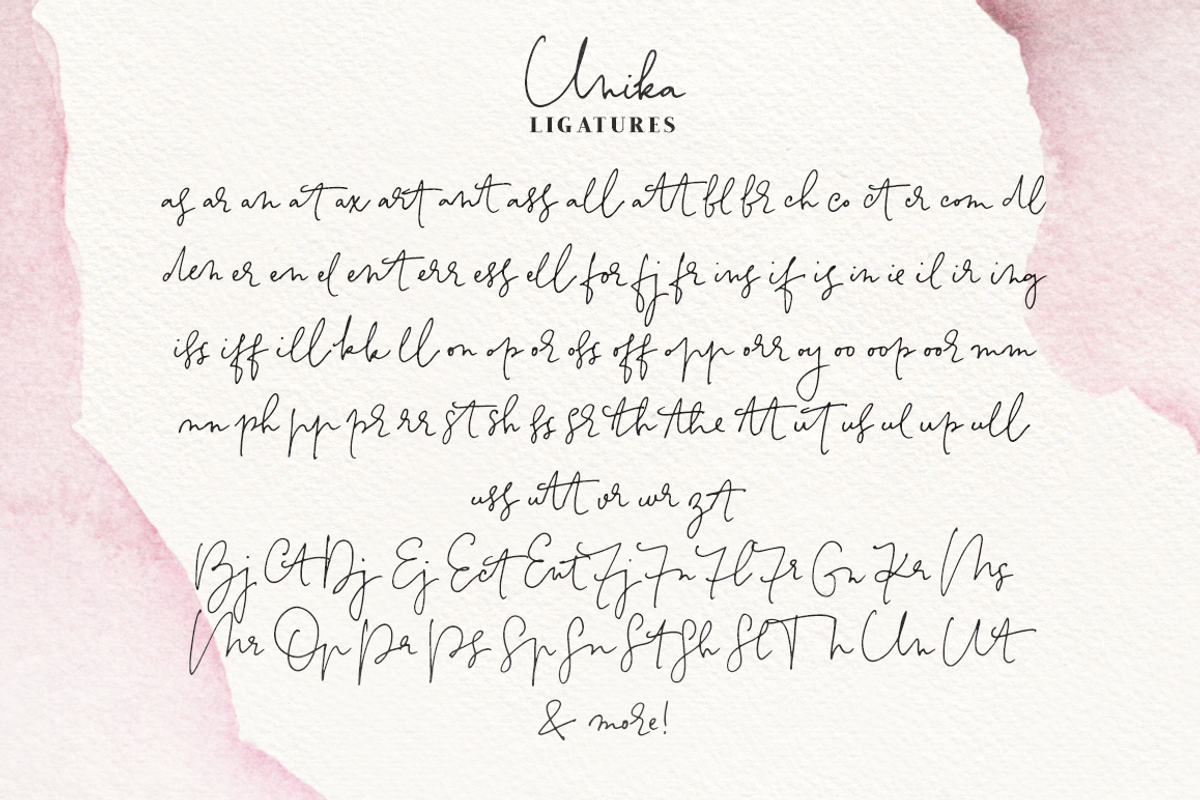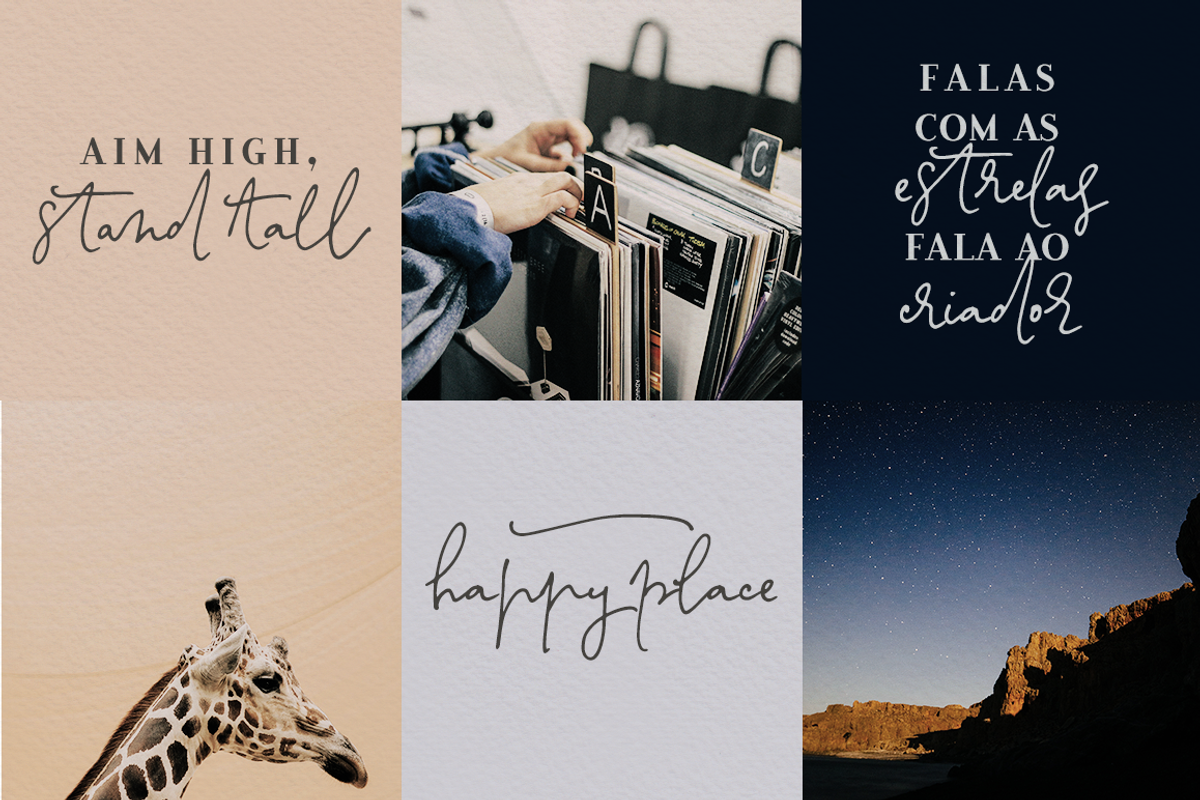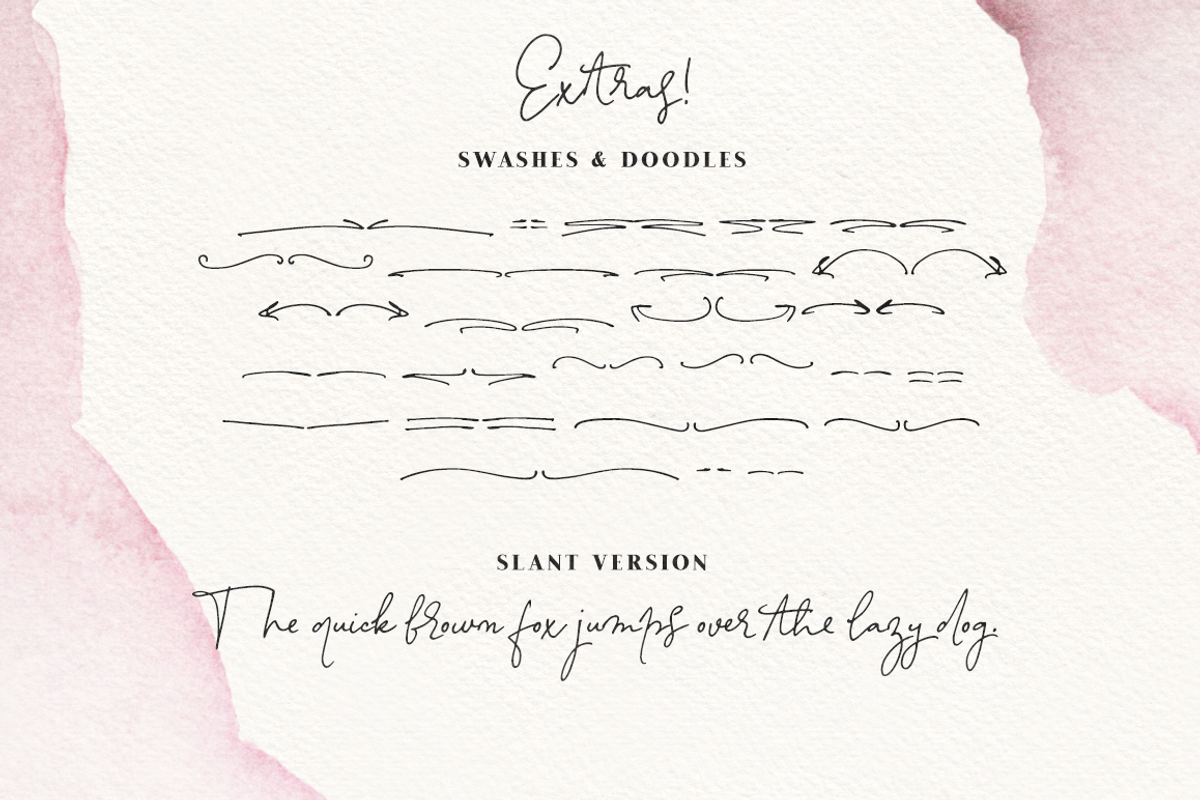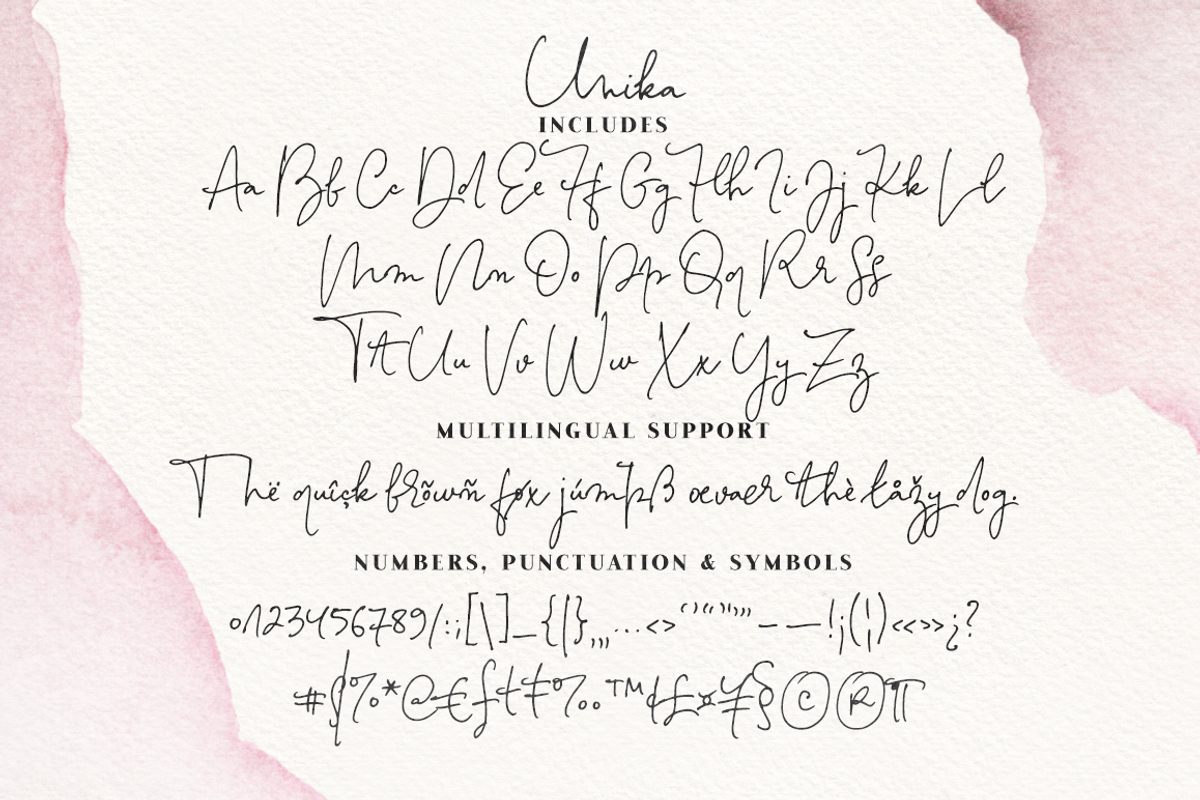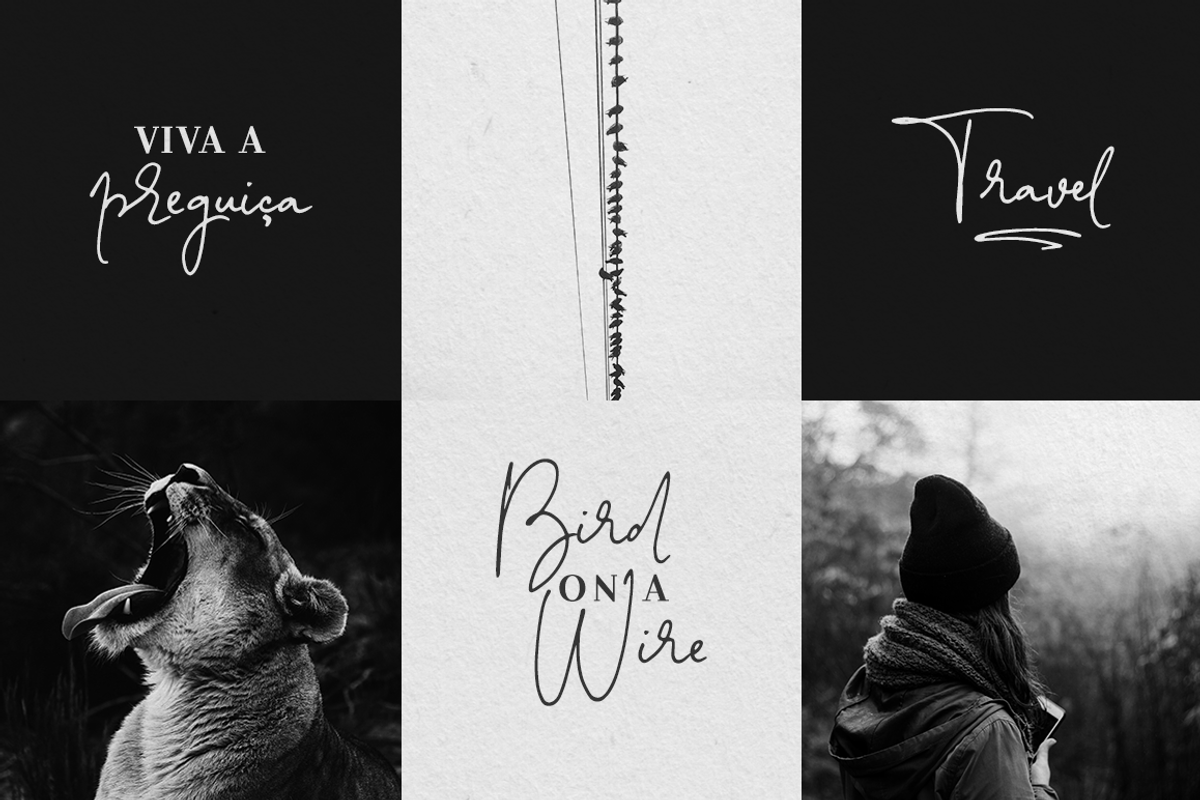
Unika font and watercolor texture pack
Unika is a beautiful signature font and texture set. It includes all you need to achieve elegant and feminine designs:
a script font family with: regular, italic and swashes fonts
a bonus serif font in 3 weights with small caps
a set of 6 seamless paper textures that are the perfect canvas for your work
a set of 12 colorful watercolor textures
a set of 22 handmade watercolour brushes
The Unika signature font includes:
100+ ligatures that will give your texts a real handwritten look
a set of 52 swashes to add visual interest to your texts
a bonus slant version of the font, in case your designs need a more dramatic look
The bonus serif font is Farewell Angelina Display ( which pairs beautifully with the signature font. It includes 3 weights: regular, bold and black; and small caps, for a more polished look.
Perfect for beautiful and easy designs with a handwritten feel, such as postcards and notes, creating logotypes, social media posts, branding and packaging, etc.